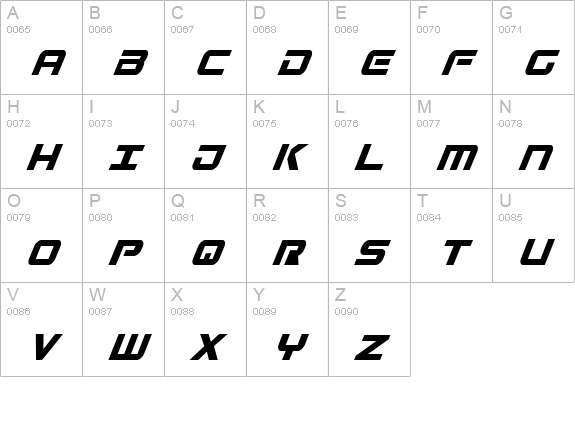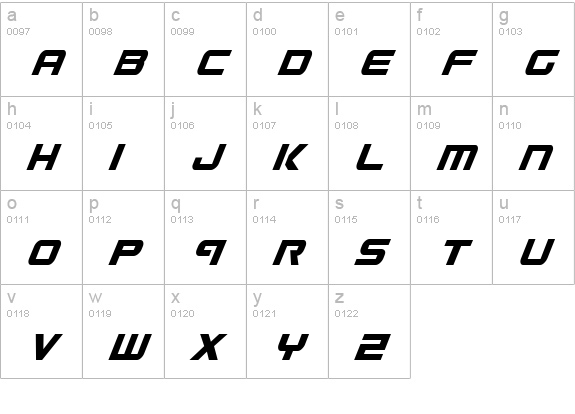
Gunship Condensed Ital is a distinctive, condensed-width variant in the Gunship typeface family \xE2\x80\x94 well suited to design and typography projects.
Gunship Condensed Ital font is a sleek and modern typeface that exudes a sense of power and sophistication. Its condensed design is perfect for creating impactful headlines, titles, and logos that demand attention. The italicized style adds a touch of elegance and flair to any design project. Best of all, Gunship Condensed Ital font is completely free to download at FontsMarket.com. Whether you're a designer looking to add a bold statement to your work or a business owner in need of a strong brand identity, this font is the perfect choice. Don't miss out on this opportunity to elevate your designs with the striking Gunship Condensed Ital font!